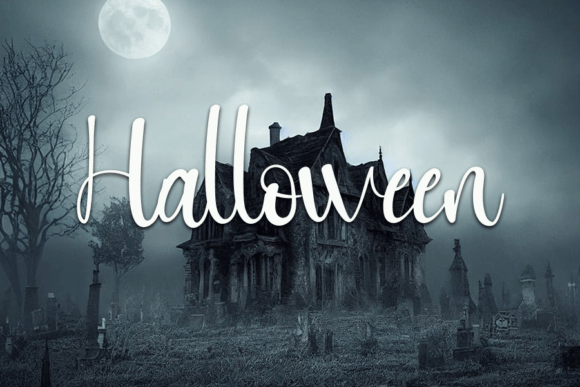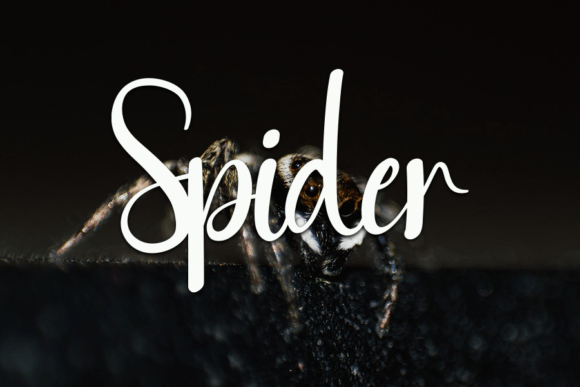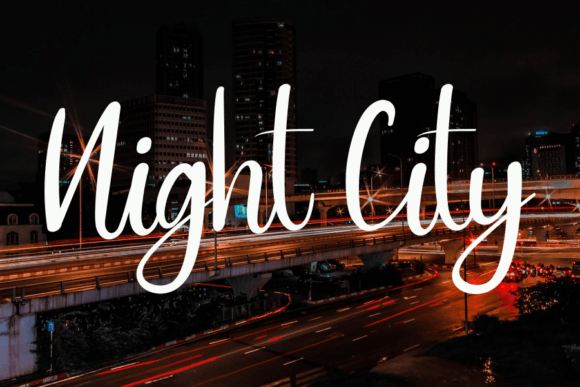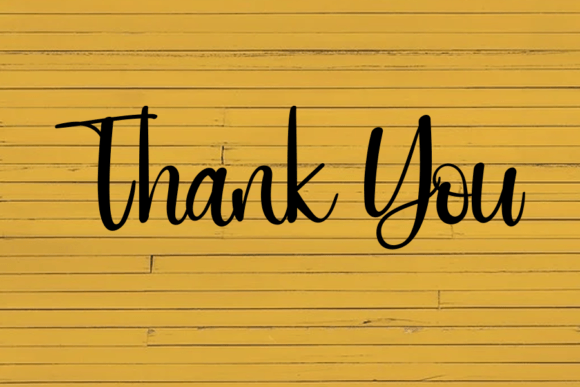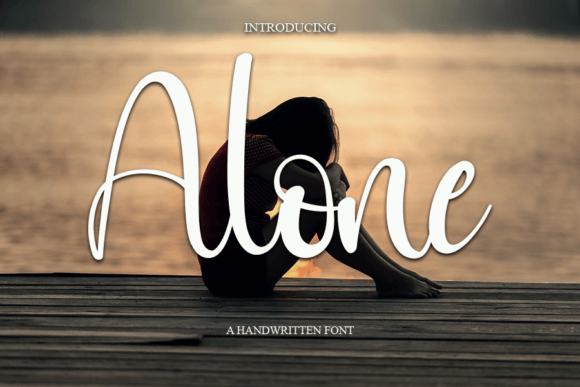
Discover the Charm of Alone Font: A Fun and Friendly Handwritten Font
Are you tired of using the same old fonts for your crafts, digital designs, presentations, and greeting cards? Look no further! Introducing Alone Font, a delightful handwritten font that’s sure to become your new favorite. With its fun and friendly vibe, Alone Font is perfect for adding a personal touch to any project.
What Makes Alone Font Special?
Alone Font is a unique and charming handwritten font that’s designed to bring a smile to your face. Its friendly and approachable style makes it ideal for a wide range of applications, from creative crafts to professional presentations. Whether you’re a designer, crafter, or simply someone who loves to create, Alone Font is sure to inspire your next project.
Uses for Alone Font
So, what can you do with Alone Font? The possibilities are endless! Here are just a few ideas to get you started:
- Crafts: Add a personal touch to your handmade crafts, such as scrapbooking, card making, and journaling.
- Digital Design: Use Alone Font to create eye-catching social media graphics, blog posts, and website headers.
- Presentations: Make your presentations stand out with a friendly and approachable font that’s sure to engage your audience.
- Greeting Cards: Create personalized greeting cards for special occasions, such as birthdays, holidays, and weddings.
Why Designers and Crafters Love Alone Font
So, what is it about Alone Font that makes it so loved by designers and crafters? Here are just a few reasons:
- Unique Style: Alone Font has a one-of-a-kind style that’s sure to make your projects stand out.
- Ease of Use: This font is easy to read and works well in a variety of sizes, making it perfect for both digital and print applications.
- Versatility: Alone Font is versatile enough to be used for a wide range of projects, from fun and playful to serious and professional.
- Emotional Connection: The friendly and approachable style of Alone Font is sure to create an emotional connection with your audience.
Tips for Using Alone Font
Here are a few tips for getting the most out of Alone Font:
- Experiment with Colors: Alone Font looks great in a variety of colors, so don’t be afraid to experiment and find the perfect hue for your project.
- Mix and Match: Combine Alone Font with other fonts to create a unique and eye-catching look.
- Use it for Headings: Alone Font works well as a heading font, adding a touch of personality to your text.
- Add a Personal Touch: Use Alone Font to add a personal touch to your projects, making them feel more handmade and special.
In conclusion, Alone Font is a fun and friendly handwritten font that’s perfect for designers, crafters, and anyone who loves to create. With its unique style, ease of use, and versatility, Alone Font is sure to become your new favorite font. So why not give it a try and see the difference it can make in your next project?
Whether you’re creating crafts, digital designs, presentations, or greeting cards, Alone Font is the perfect choice. Its friendly and approachable style is sure to engage your audience and add a personal touch to your projects. So go ahead, get creative, and make Alone Font a part of your design journey!